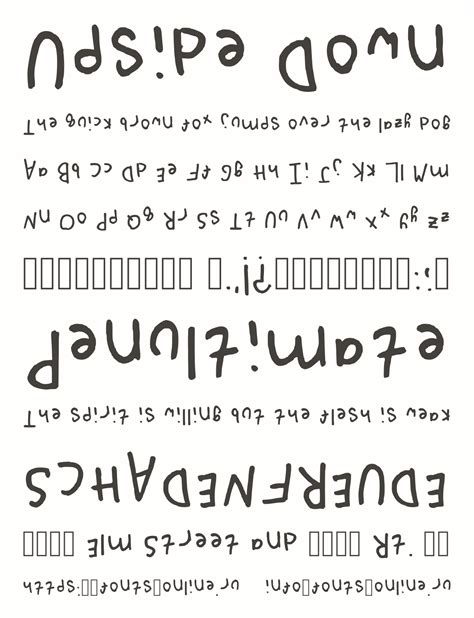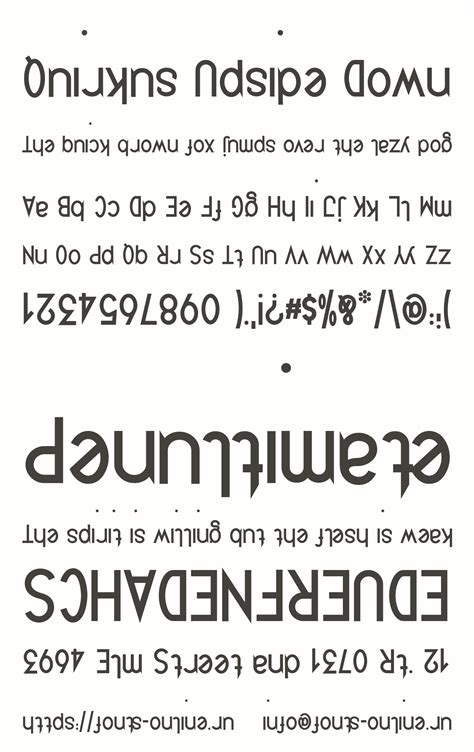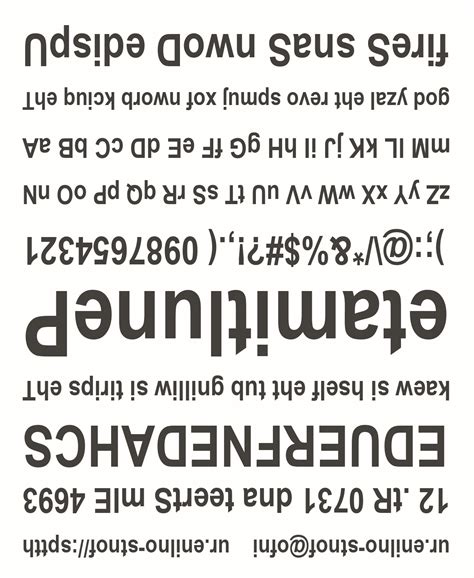
In the vast world of typography, there are countless fonts that cater to various design needs. One of the most intriguing and unique categories is the upside down font. These fonts are designed to be read when the text is flipped upside down, adding a playful and creative element to any design project. Whether you're looking to add a fun twist to a poster, create a mysterious invitation, or simply experiment with typography, upside down fonts offer a distinctive way to convey your message.
What is an Upside Down Font?
An upside down font is a typeface designed to be read correctly when the text is flipped 180 degrees. This means that the letters appear backwards and upside down when viewed normally, but when the entire text block is rotated, it becomes legible. These fonts are often used in creative projects to add a unique and eye-catching element. They can be particularly effective in designs that aim to surprise or intrigue the viewer.
History and Evolution of Upside Down Fonts
The concept of upside down fonts has been around for centuries, often used in puzzles, riddles, and secret messages. However, it was not until the digital age that these fonts became more accessible and widely used. With the advent of graphic design software and the internet, designers and typographers began experimenting with upside down fonts, leading to a variety of creative and innovative designs.
Popular Upside Down Fonts
There are several popular upside down fonts that have gained recognition in the design community. Some of the most notable include:
- UpsideDown: A classic example of an upside down font, this typeface is designed to be read when flipped 180 degrees.
- Flipped: This font offers a modern take on the upside down concept, with clean lines and a contemporary feel.
- Inverted: Known for its bold and striking design, this font is perfect for making a strong visual impact.
- Mirrored: This font combines the upside down effect with a mirrored design, adding an extra layer of complexity and intrigue.
How to Use Upside Down Fonts in Your Designs
Using an upside down font in your designs can be a fun and creative way to add a unique touch. Here are some steps to help you get started:
- Choose the Right Font: Select an upside down font that fits the style and tone of your project. Consider the overall design and the message you want to convey.
- Experiment with Placement: Try placing the upside down text in different parts of your design to see how it interacts with other elements. This can help you find the most effective placement.
- Use Contrast: To make the upside down text stand out, use contrasting colors or backgrounds. This will help draw the viewer’s attention to the text.
- Rotate the Text: Remember to rotate the text 180 degrees to make it readable. This can be done easily in most graphic design software.
💡 Note: When using upside down fonts, it's important to consider the readability of the text. Ensure that the text is large enough and placed in a way that makes it easy to read when flipped.
Applications of Upside Down Fonts
Upside down fonts can be used in a variety of applications, from graphic design to advertising and beyond. Here are some common uses:
- Posters and Flyers: Add a unique twist to your posters and flyers by incorporating upside down text. This can make your design stand out and grab attention.
- Invitations: Create mysterious and intriguing invitations by using upside down fonts. This can add an element of surprise and excitement to your event.
- Advertising: Use upside down fonts in your advertising campaigns to create a memorable and eye-catching design. This can help your message stand out in a crowded market.
- Packaging Design: Incorporate upside down text into your packaging design to add a playful and creative touch. This can make your product more appealing to consumers.
Design Tips for Using Upside Down Fonts
When using upside down fonts in your designs, there are several tips to keep in mind to ensure the best results:
- Keep It Simple: Avoid using too many different upside down fonts in a single design. Stick to one or two fonts to maintain a cohesive look.
- Consider the Context: Think about the context in which the upside down text will be viewed. Ensure that the text is readable and makes sense in the given setting.
- Use High-Quality Images: If you’re incorporating upside down text into images, make sure the images are high-quality and clear. This will help ensure that the text is legible.
- Test Different Angles: Experiment with different angles and orientations to see how the upside down text interacts with other elements in your design.
Common Mistakes to Avoid
While upside down fonts can add a unique touch to your designs, there are some common mistakes to avoid:
- Overuse: Using too many upside down fonts in a single design can make it look cluttered and confusing. Use them sparingly to maintain a clean and cohesive look.
- Poor Readability: Ensure that the upside down text is large enough and placed in a way that makes it easy to read when flipped. Poor readability can detract from the overall design.
- Inconsistent Style: Make sure the upside down font matches the overall style and tone of your design. Inconsistent styling can make the design look disjointed.
💡 Note: Always preview your design in different orientations to ensure that the upside down text is readable and effective.
Examples of Upside Down Fonts in Action
To give you a better idea of how upside down fonts can be used in various contexts, here are some examples:
| Design Type | Example | Effect |
|---|---|---|
| Poster | An event poster with the event name in an upside down font, creating a sense of mystery and intrigue. | Grabs attention and makes the poster stand out. |
| Invitation | A wedding invitation with the couple’s names in an upside down font, adding a playful touch. | Creates a memorable and unique invitation. |
| Advertising | A billboard advertisement with the brand name in an upside down font, making it stand out from the competition. | Makes the advertisement more eye-catching and memorable. |
| Packaging | A product packaging design with the product name in an upside down font, adding a creative element. | Makes the product more appealing and unique. |
Creating Your Own Upside Down Font
If you’re feeling adventurous, you can even create your own upside down font. Here are the steps to get you started:
- Choose a Base Font: Start with a font that you like and that fits the style of your project. This will serve as the base for your upside down font.
- Flip the Letters: Use graphic design software to flip each letter 180 degrees. This will create the upside down effect.
- Adjust the Spacing: Ensure that the spacing between the letters is consistent and that the text remains legible when flipped.
- Test the Font: Create sample text using your new upside down font to see how it looks and make any necessary adjustments.
💡 Note: Creating your own upside down font can be a time-consuming process, but it allows you to customize the font to fit your specific design needs.
Upside down fonts offer a unique and creative way to add a playful touch to your designs. Whether you’re using them in posters, invitations, or advertising, these fonts can help your message stand out and grab attention. By following the tips and guidelines outlined in this post, you can effectively incorporate upside down fonts into your designs and create visually stunning and memorable projects.